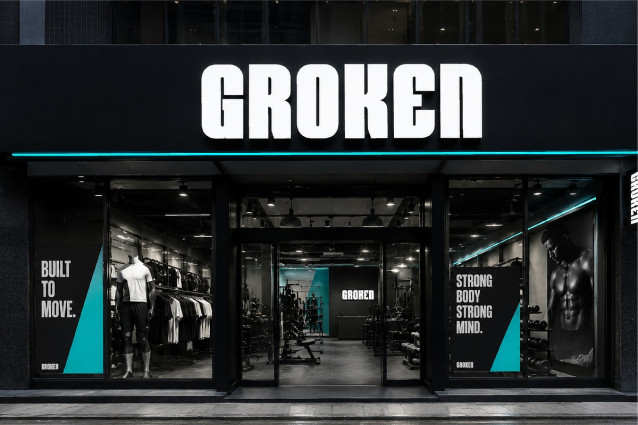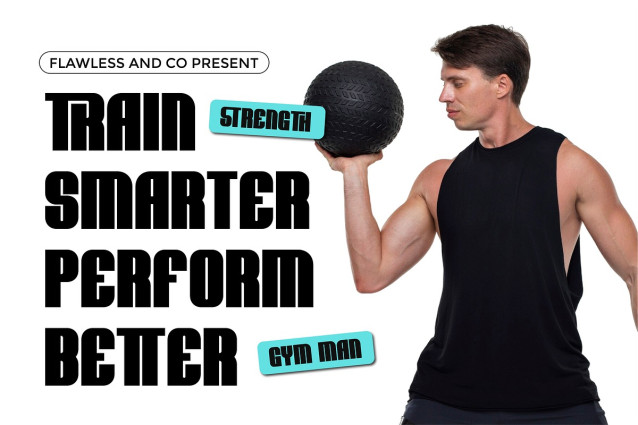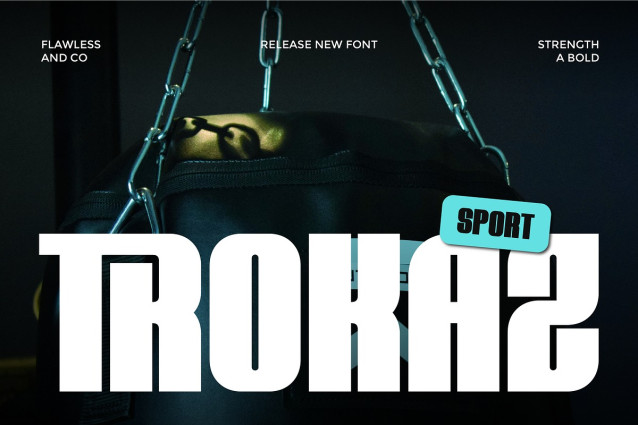
Trokaz – Bold Sport Display Font
Trokaz is a bold sport font engineered for designs that refuse to blend into the background. With its powerful strokes, condensed structure, and confident athletic character, Trokaz delivers typography that feels fast, fearless, and built for champions. Every letter is crafted to create maximum visual impact, turning ordinary headlines into bold statements of strength and determination.